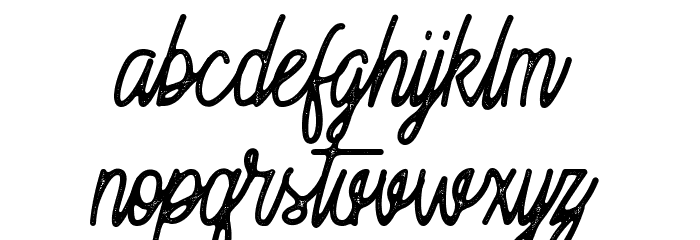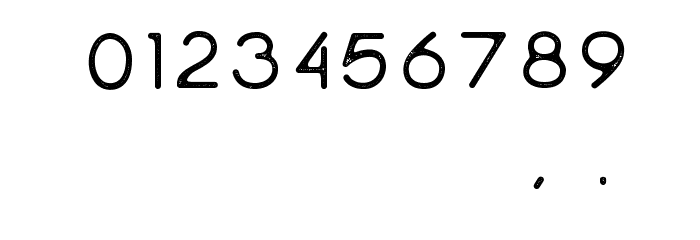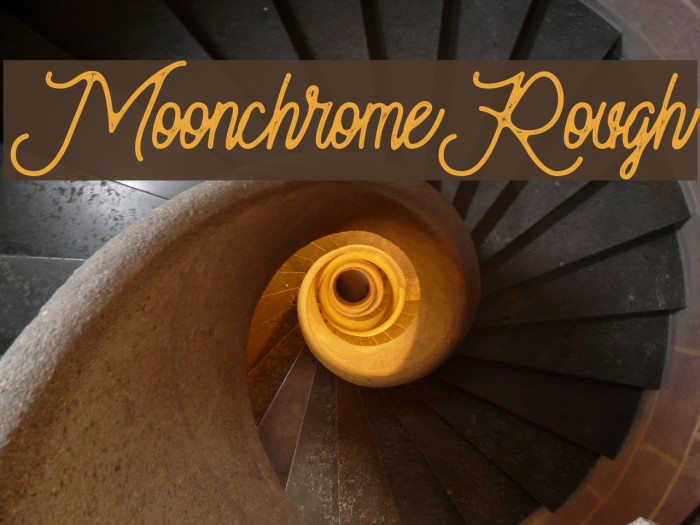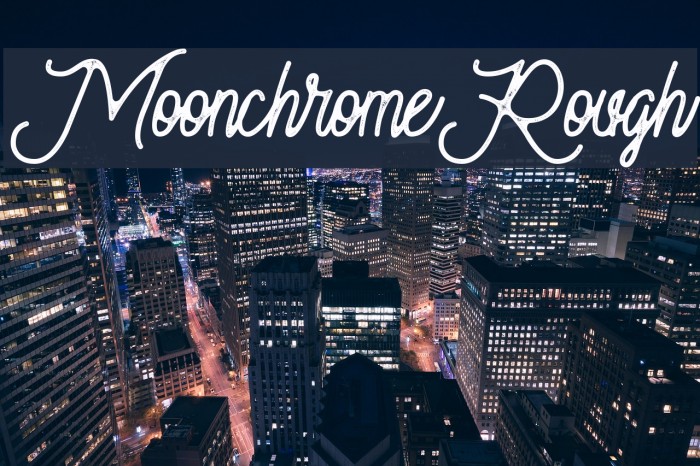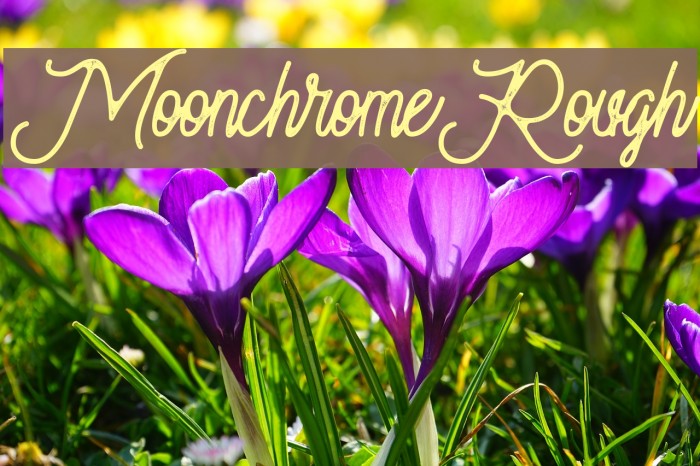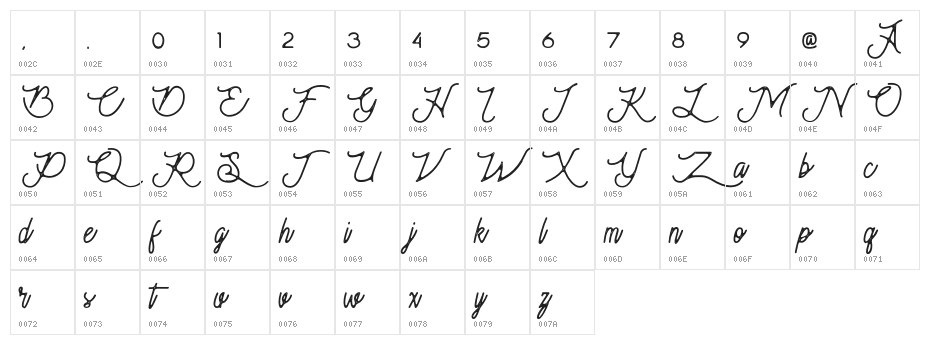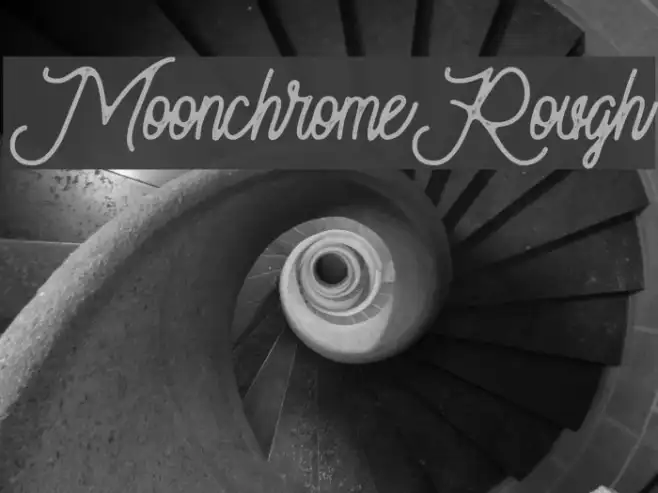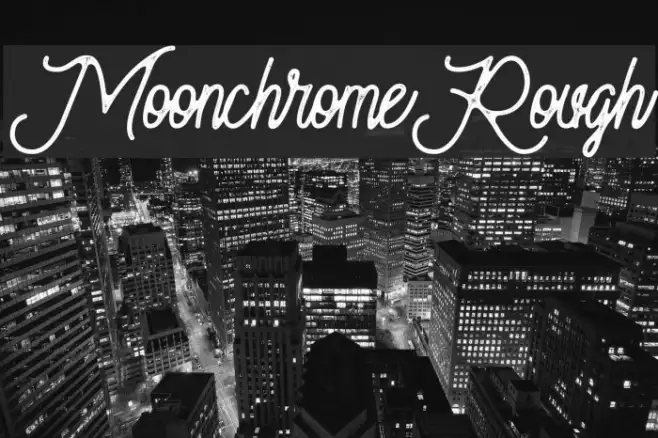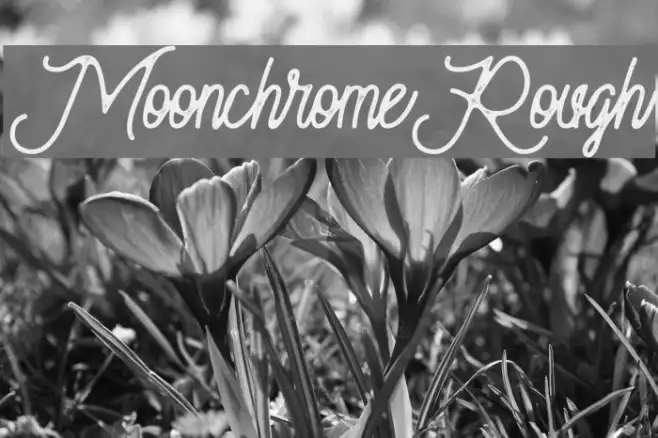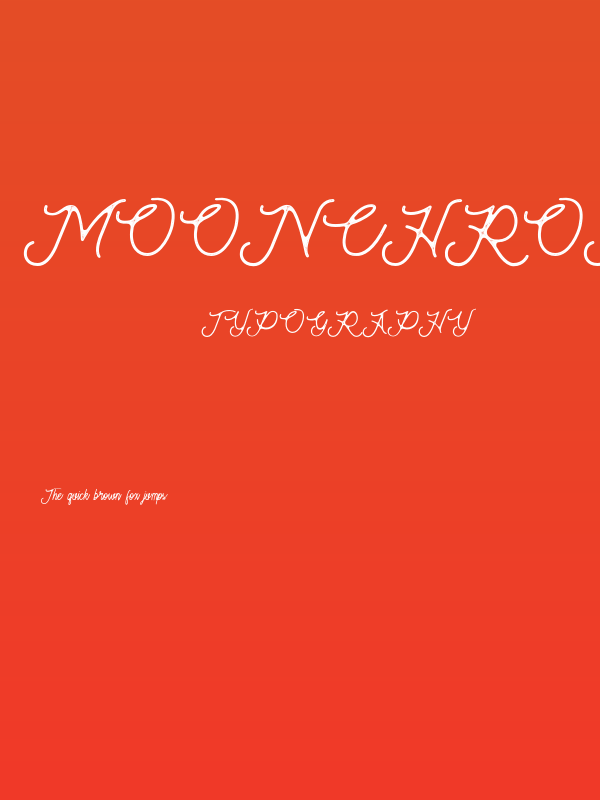
MoonchromeRough Font
This font features a unique blend of cursive and bold script styles, offering a dynamic and textured appearance. The uppercase letters are elegantly connected, creating a flowing and sophisticated look, while the lowercase letters are bold and slightly rough, adding a touch of modernity and edge. The numerals are clean and straightforward, maintaining the overall aesthetic. The special characters complement the font's style, making it versatile for various design needs. Its rough texture gives it a handcrafted feel, perfect for projects that require a personal touch.
A dynamic cursive and bold script font with a rough, handcrafted texture.
- Proposed Projects: Ideal for branding, invitations, greeting cards, and artistic projects that require a personal and stylish touch.
- Use Case: Logos, Invitations, Artistic projects